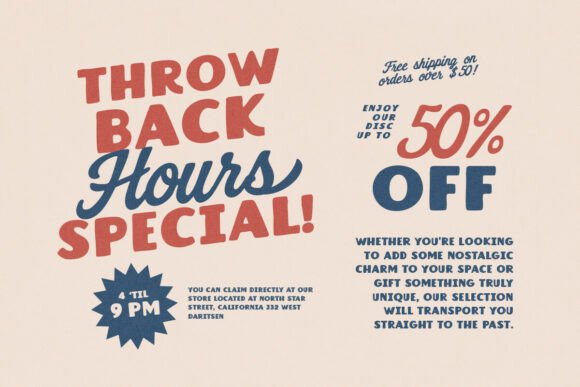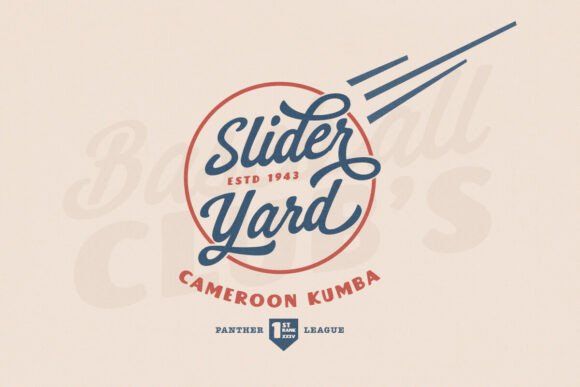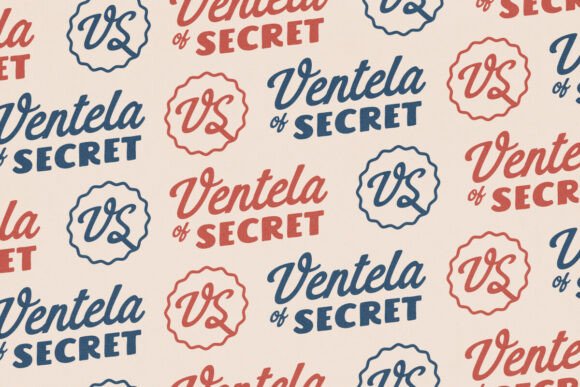
Introduction to Rustic Graytone Font
Have you ever sat at your desk, surrounded by scattered papers, half-finished projects, and the faint scent of ink? That’s when the magic happens – the spark of creativity that ignites the perfect design solution. For many designers, this moment is the culmination of countless hours of searching for the perfect font, the one that captures the essence of their creative project. And that’s exactly what you’ll find with the Rustic Graytone Font, a masterfully crafted vintage font duo that adds a touch of authenticity to any design.
This collection of fonts is more than just a design resource – it’s a key to unlocking the timeless aesthetic of a bygone era. With its rugged, bold sans serif and flowing, expressive script, the Rustic Graytone Font is the ultimate solution for designers seeking a high-quality, nostalgic look for their projects. Whether you’re designing a logo for a craft beer label or creating signage for a local workshop, this font duo offers a tactile aesthetic that feels like it was pulled straight from a letterpress.
Key Features of Rustic Graytone Font
• Rustic Graytone Font is a high-quality design resource ideal for creative projects that require a unique, vintage aesthetic.
• One of the unique characteristics of Rustic Graytone Font is its distressed texture, which adds a touch of ruggedness and charm to any design project.
• This font is perfect for designers looking for a creative way to add a vintage flair to their work, and it’s a great addition to any design library.
• Rustic Graytone Font is a versatile design resource that can be used in a variety of creative projects, from logos and branding to packaging and advertising.
Honest Review: Rustic Graytone Font
One of the standout features of this font is its high-quality design. The transparent background allows for seamless integration with any creative project, making it a versatile choice for designers.
Here are some of the things that work well with the Rustic Graytone Font:
• ✨ Unique and elegant design
• ✨ High-quality typography
• ⚠️ Limited character set (may not be suitable for extensive text-based projects)
Overall, I’m impressed with the Rustic Graytone Font. Its high-quality design and versatility make it a great addition to any design resource collection. While there are some limitations, they’re relatively minor and don’t detract from the overall experience. I’d definitely recommend this font for any creative project that requires a unique and elegant touch.
To get the most out of the Rustic Graytone Font, use it in conjunction with other design elements that complement its unique style. Experiment with different font sizes and styles to create a visually appealing design.
The Rustic Graytone Font is ideal for:
• Wedding invitations and stationery.
• Food and beverage branding.
• Home decor and furniture design.